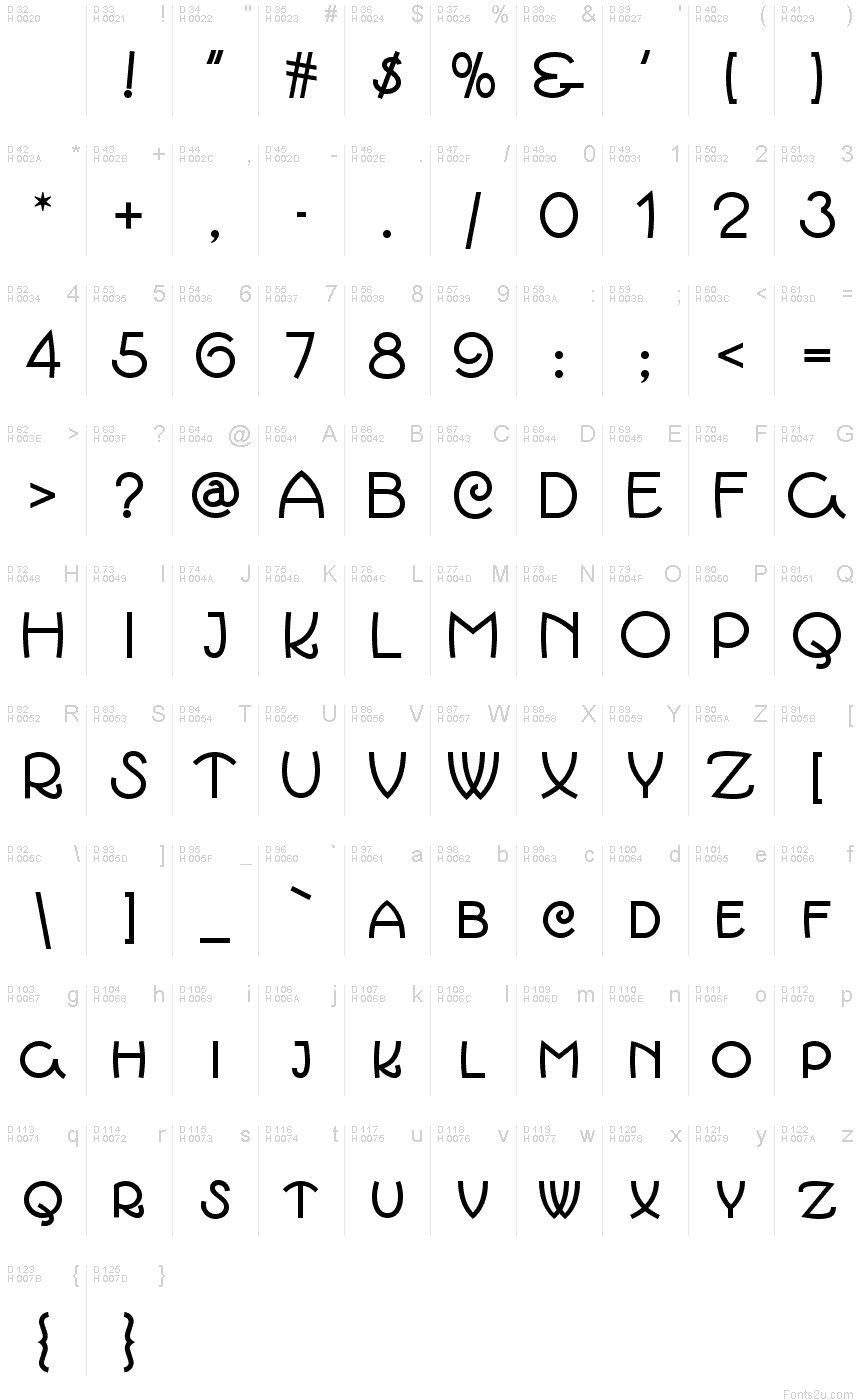
MarchMadnessNF
March Madness NF font by Nick Curtis is a free retro display font with curly, hand-drawn letterforms and a tall, uneven rhythm. The shapes mix sharp angled strokes with rounded joins and a few looped turns, giving the alphabet a lively, slightly improvised feel without losing its clear structure.
March Madness NF works well for poster titles, event flyers, school spirit graphics, party invitations, retro signage, and logo accents. This free font brings enough motion and character to make short display text feel energetic while still fitting layouts that need a more personal, handmade edge.